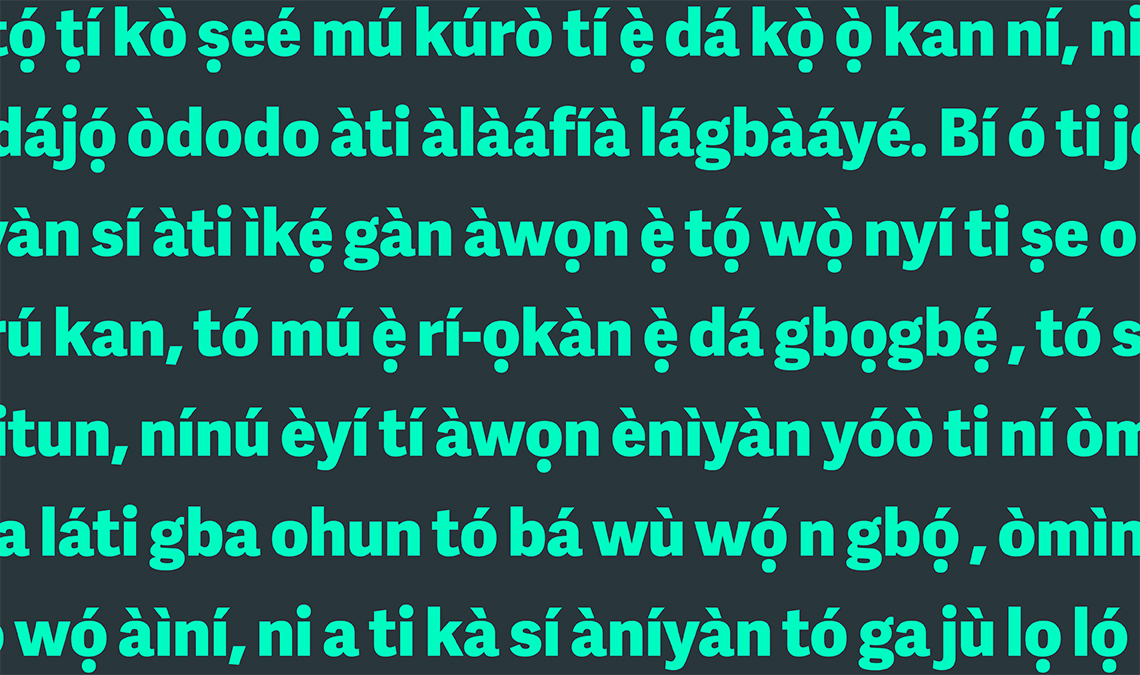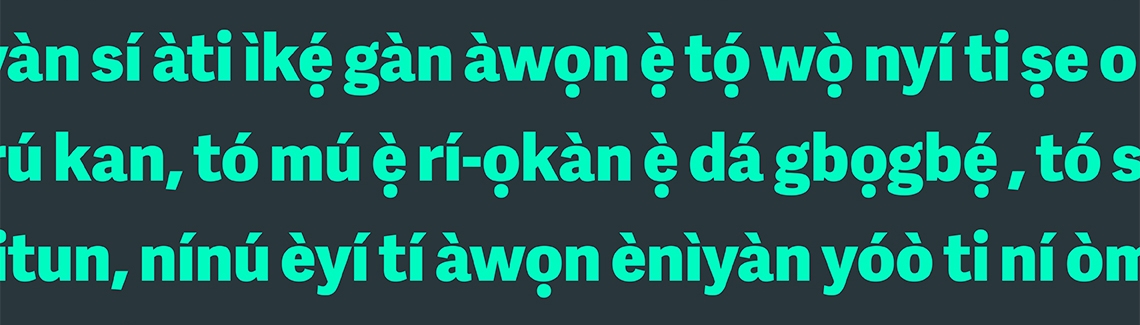
New Release: Adelle Sans Extended
We are very happy to announce the release of Adelle Sans Extended which expands the original family’s forms into a versatile tool specifically for Vietnamese and Pan-African Latin-based languages.
Our multi-award winning superfamily has received another massive update for Latin-based languages. The new Adelle Sans Extended family contains Vietnamese, Latin, and Pan-African languages. For the African extension we partnered with African language specialist Dr Don Osborn. This family extension was years in the making and is a significant step forward in multilingual type families, especially families intended to carry the same tone across cultures and dialects.